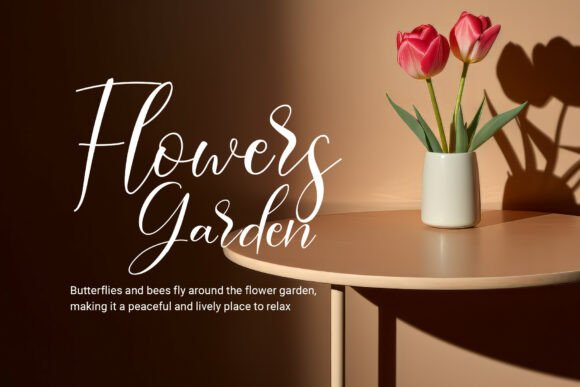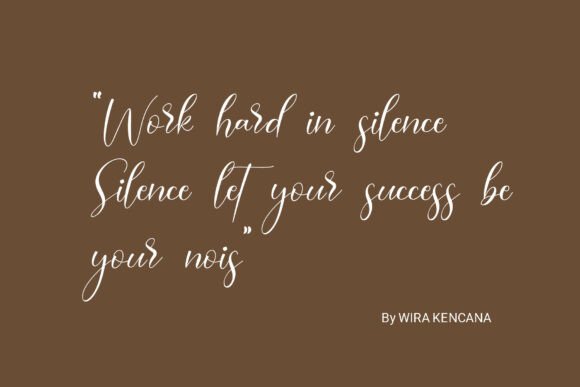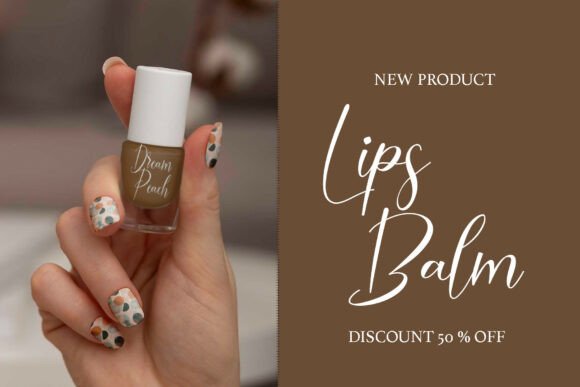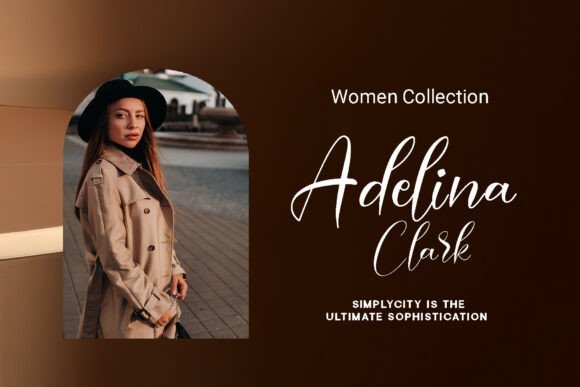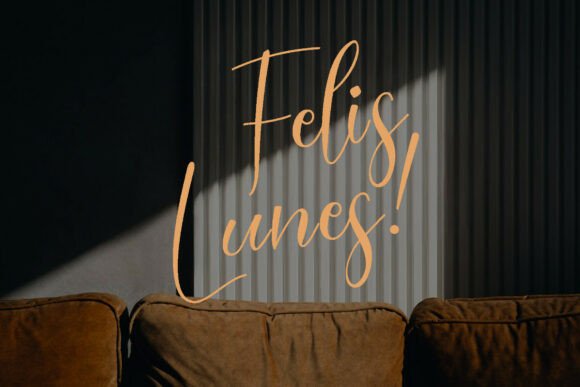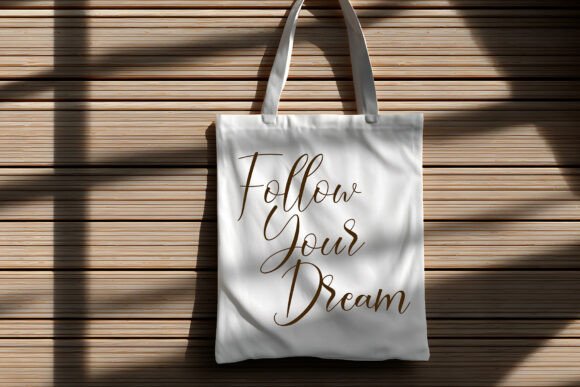
Introduction to Muthia Sari Font
Have you ever found yourself lost in a world of digital design, searching for the perfect font to convey the essence of your creative vision? I know I have. As a designer, there’s nothing quite like the feeling of stumbling upon a typeface that effortlessly brings your ideas to life. For me, that moment came when I discovered the Muthia Sari Font. This stunning script font is more than just a design resource – it’s a key to unlocking the perfect blend of style and sincerity in your next creative project.
With its relaxed, rhythmic flow and warm, human touch, the Muthia Sari Font is the perfect addition to any design portfolio. Whether you’re working on a heartfelt greeting card, a stylish blog header, or chic product packaging, this high-quality font is sure to elevate your work to the next level.
About Muthia Sari Font
Key Features of Muthia Sari Font
- High-quality design resource ideal for creative projects and designs requiring a unique touch.
- Features a unique and intricate design that sets it apart from other fonts in its category.
- Designed to be highly legible, making it suitable for a wide range of applications, from body text to headings.
Honest Review: Muthia Sari Font
As a designer, I’m always on the lookout for unique and high-quality design resources to elevate my creative projects. Recently, I had the chance to work with the Muthia Sari Font, and I must say it’s a great addition to any design arsenal.
- High-quality design: The Muthia Sari Font features beautiful, intricate designs that are perfect for adding a touch of elegance to any project.
One thing to note is that the font may not be suitable for all types of projects, especially those requiring a bold or sans-serif font. Additionally, some users may find the intricate designs to be too complex or overwhelming.
Overall, I’m impressed with the Muthia Sari Font. Its unique design and high-quality construction make it an excellent choice for designers looking to add a touch of sophistication to their creative projects. If you’re looking for a beautiful, free font to elevate your design game, the Muthia Sari Font is definitely worth checking out.
The Muthia Sari Font is a high-quality, free download that offers a unique and creative design element for your projects. This versatile font features a transparent background, making it perfect for adding visual interest to your designs.
Common Use Cases for Muthia Sari Font
The Muthia Sari Font is perfect for a variety of creative projects, including
Alternatives to Muthia Sari Font
The Great Vibes Font is a high-quality, elegant script font perfect for creative projects that require a touch of sophistication. It’s ideal for use in wedding invitations, branding materials, and other design elements where a unique, handwritten feel is desired.
When compared to Muthia Sari Font, Great Vibes has a more refined and polished appearance, making it suitable for a wider range of design applications.